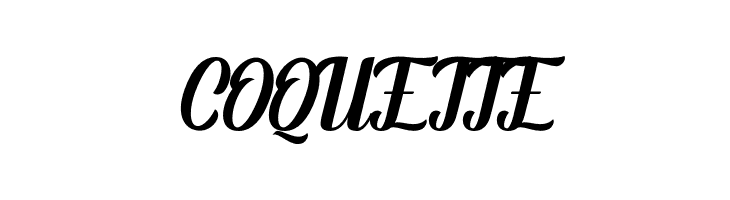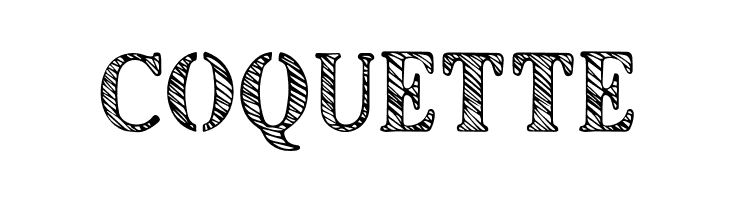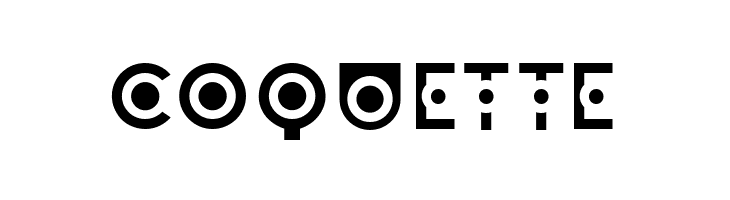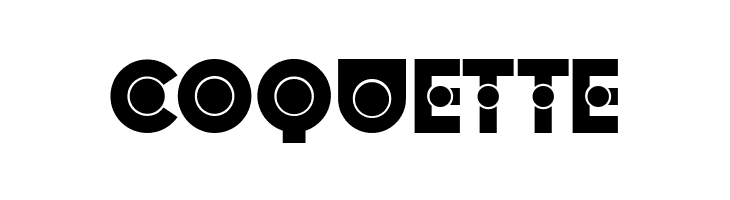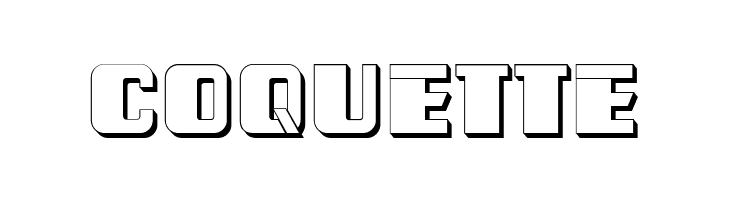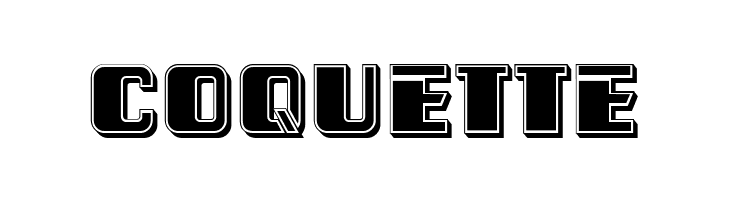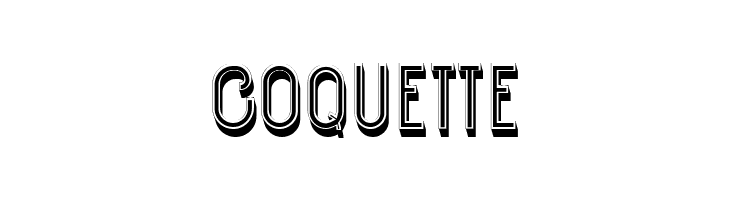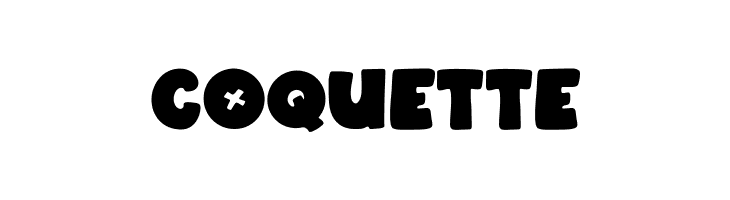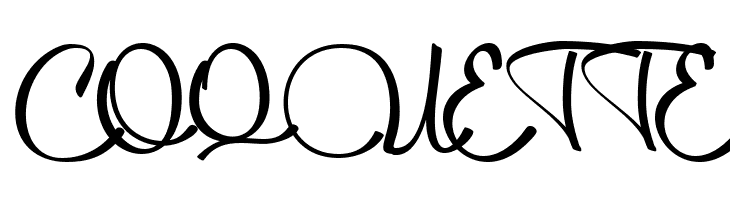
A bold, playful font with rounded, exaggerated curves and a whimsical style.
A bold, playful font with rounded, whimsical characters.
A bold, playful font with a hand-drawn, distressed texture.
An elegant and sophisticated script font with flowing curves and ornate details.
A bold, geometric font with a 3D effect and modern industrial style.
An elegant script font with flowing, cursive style and intricate flourishes.
A playful, handwritten font with a casual and dynamic style.
A bold, angular font with a futuristic and aggressive style.
A playful, elegant script font with a handwritten appearance.
A bold, blocky font with rounded edges and a strong presence.
A bold, italic, and modern typeface with thick, rounded strokes and tight spacing.
A bold, geometric font with hollow interiors and a futuristic style.
A bold, hollow, geometric font with a futuristic style.
A bold, geometric font with a futuristic and digital aesthetic.
A bold, geometric font with a futuristic and modern design.
A lively, expressive handwritten font with fluid strokes and a natural flow.
A bold, playful handwritten font with rounded, consistent strokes.
An elegant script font with flowing, ornate letterforms and graceful swashes.
An elegant script font with flowing cursive style and intricate flourishes.
A modern, handwritten font with fluid, connected strokes and a personal touch.
A bold, decorative serif font with a hatched texture and classic yet modern appeal.
A lively and playful script font with dynamic loops and swirls.
A lively and playful script font with interconnected strokes and a whimsical touch.
A bold, decorative font with a 3D effect and striped patterns.
A bold, decorative font with a 3D effect and textured fill.
A bold, decorative font with a unique striped pattern and geometric structure.
A bold, distressed font with a grunge, textured appearance.
A bold, dynamic script font with flowing, cursive characters.
A bold, cursive font with elegant, interconnected characters and a modern yet classic appeal.
A bold, hollow italic font with a modern, geometric style.